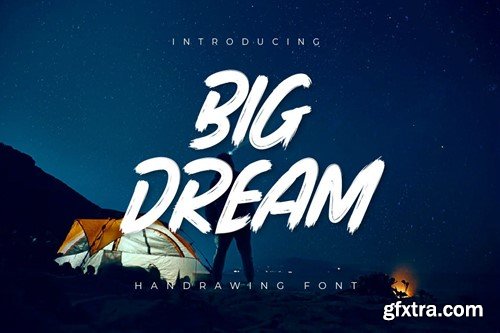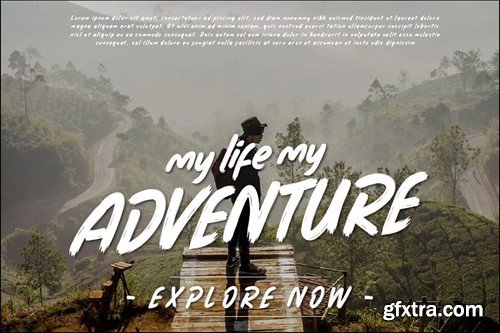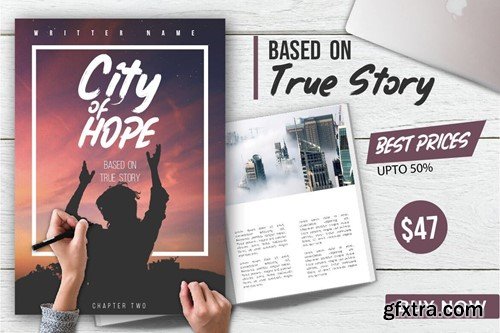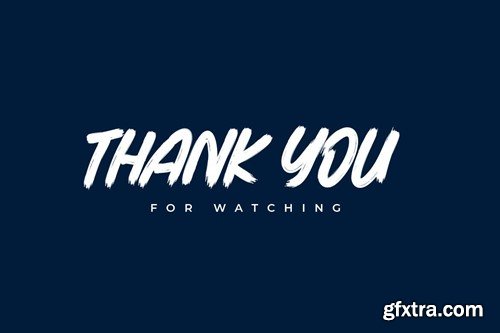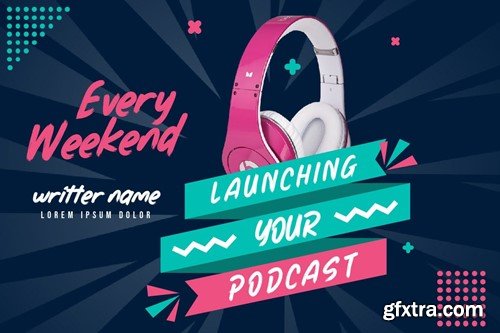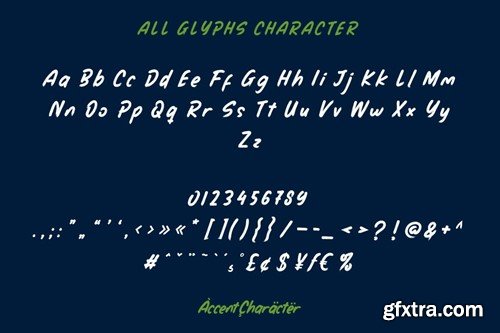
Big Dream - 刷写手写字体 PQHYL4U
Big Dream - Brush Handwritten Font PQHYL4U
Big Dream - Brush Handwritten Font
Big Dream is an enthusiastic and hopeful handwritten font. With big sways and bold characters, this font inspires me to chase dreams and achieve great things in life. Ideal for titles, quotes, or designs seeking an optimistic and energetic appearance.